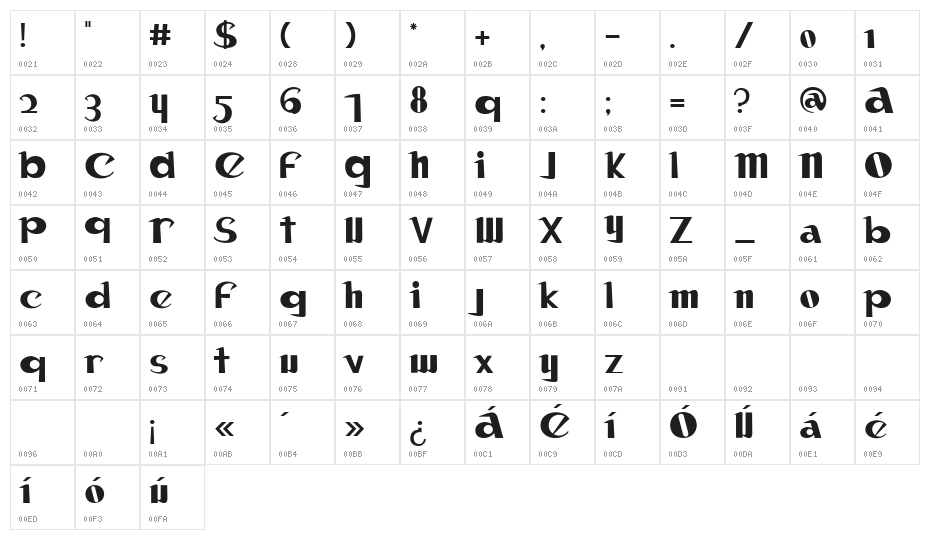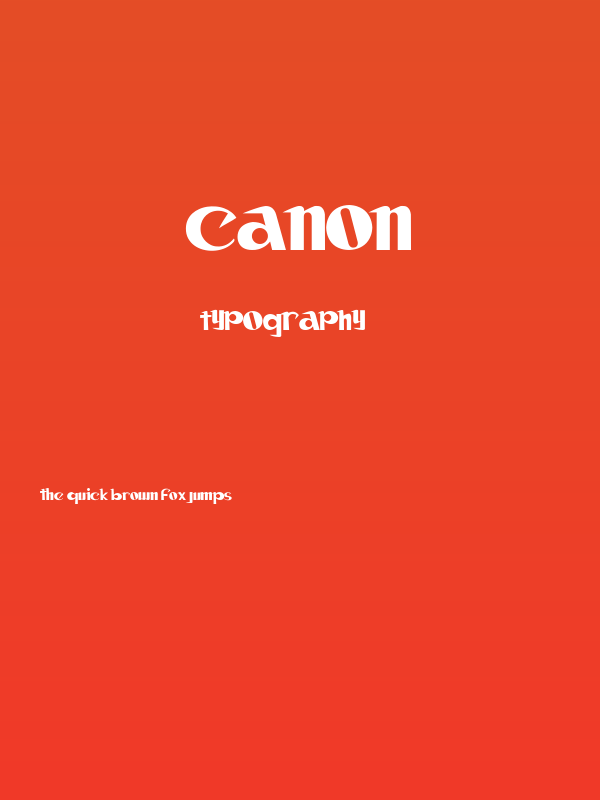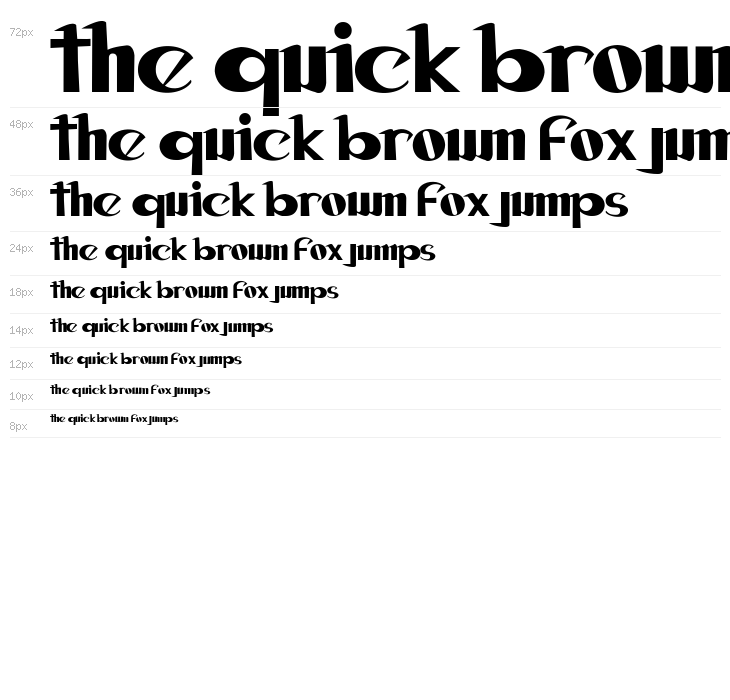
Canon Font
Canon Description
This font features a bold and striking design with a unique blend of geometric and angular elements. The characters are crafted with sharp edges and distinct curves, creating a dynamic and modern appearance. The uppercase letters exhibit a strong presence with their wide and solid forms, while the lowercase letters maintain a cohesive style with slightly more rounded edges. The numerals are bold and consistent, matching the overall aesthetic of the font. Special characters are designed with the same attention to detail, ensuring a harmonious look across all glyphs. This font is ideal for projects that require a bold statement and a contemporary feel.
| Proposed Projects | Ideal for branding, posters, headlines, and any design needing a bold statement. |